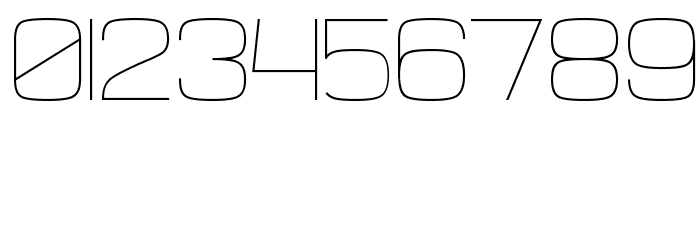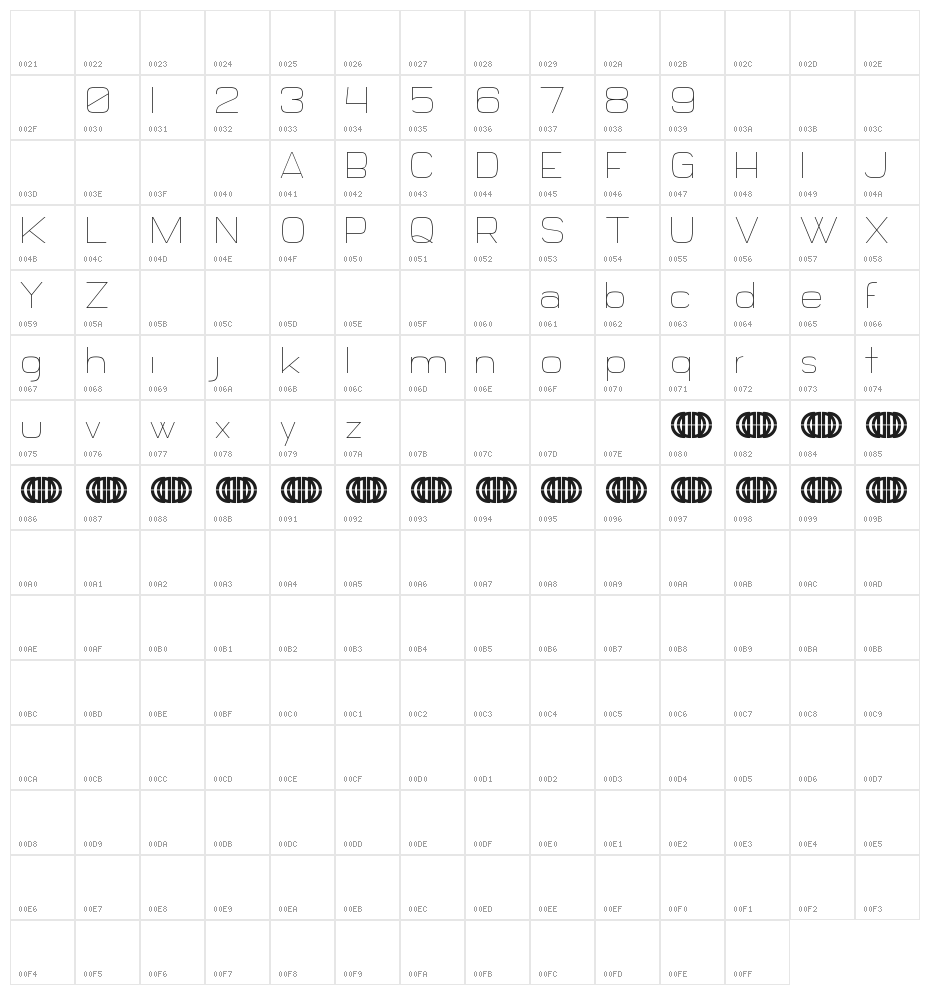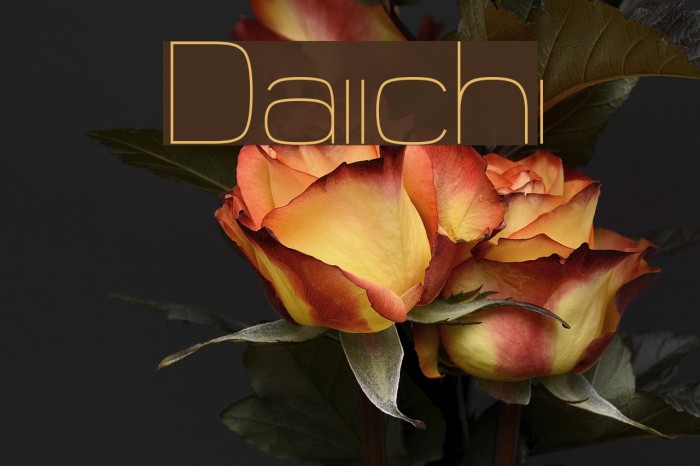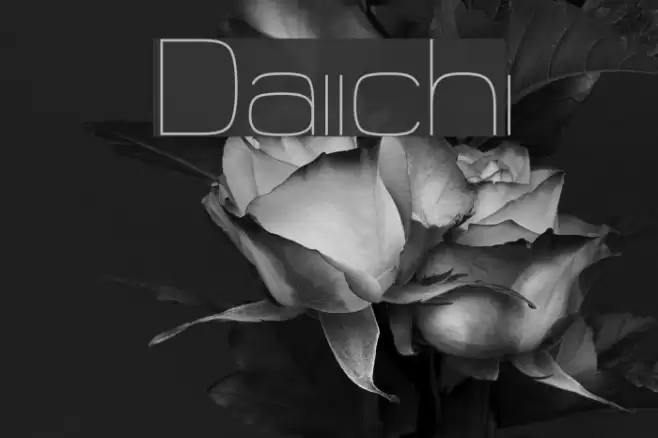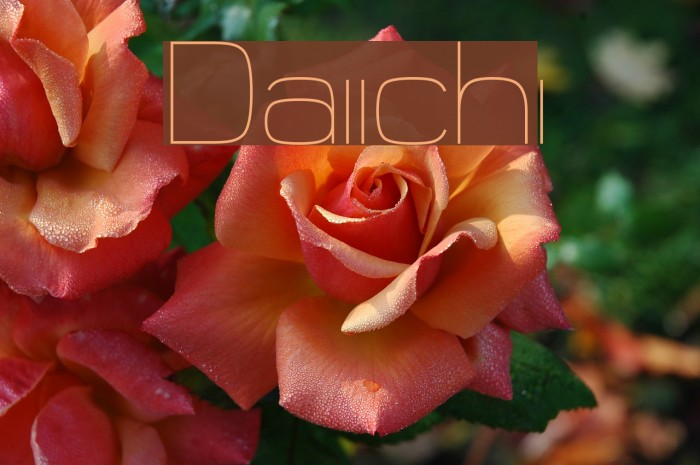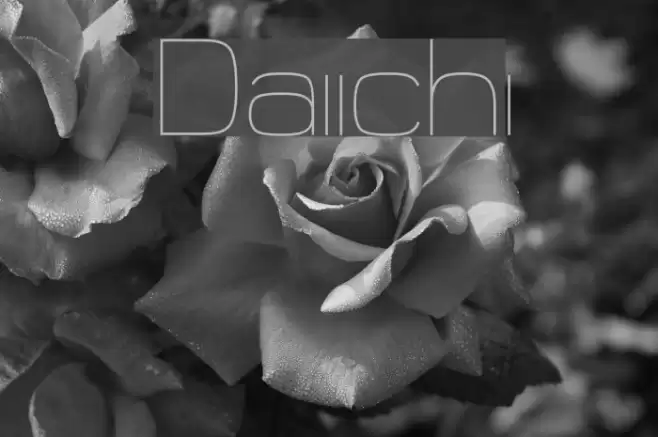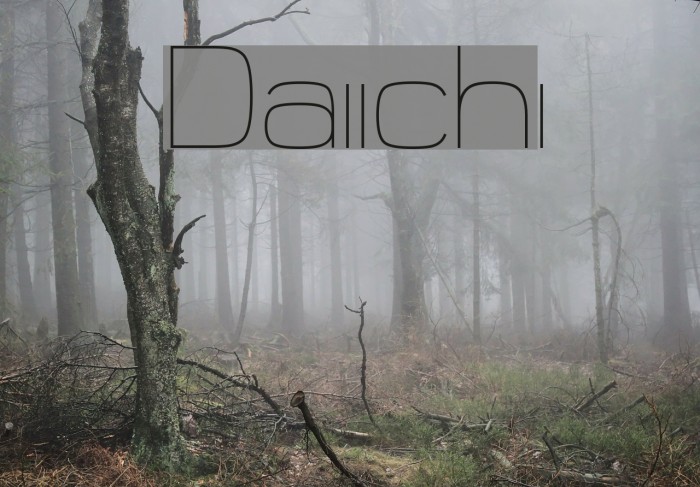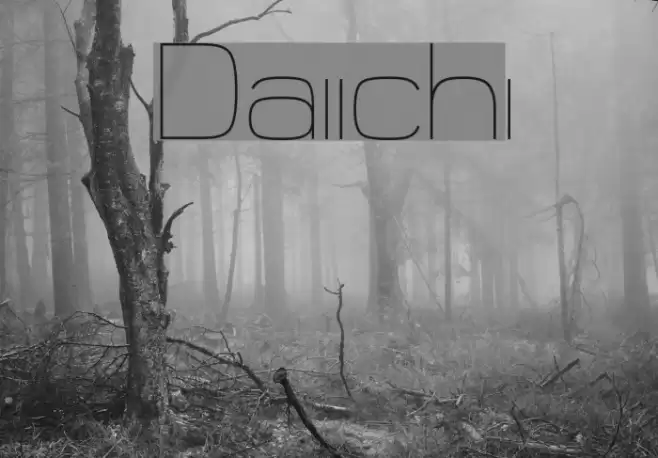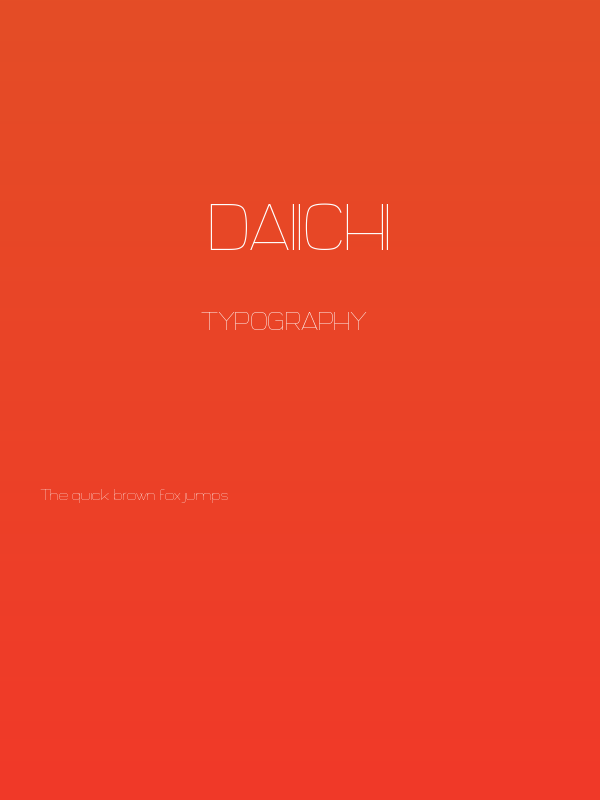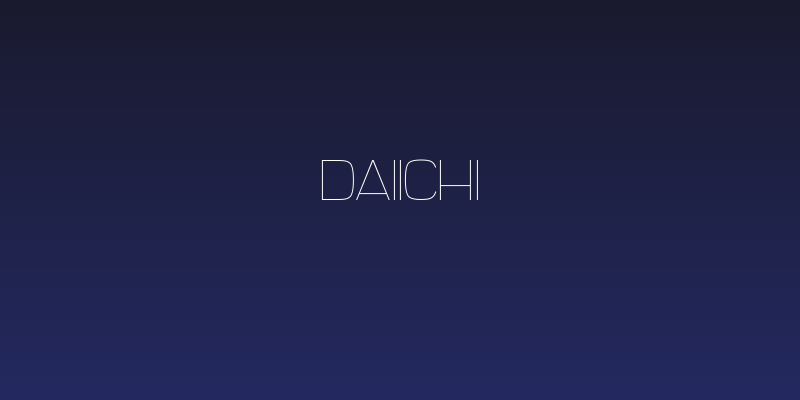
Daiichi Font
Daiichi Description
This font features a sleek, modern design with a geometric and minimalist aesthetic. The characters are composed of thin, uniform lines that create a sense of elegance and sophistication. The uppercase and lowercase letters maintain a consistent height, contributing to a clean and orderly appearance. The numerals are designed with the same thin strokes, ensuring a cohesive look across all characters. This font's simplicity and clarity make it highly versatile, suitable for a wide range of applications where a contemporary and stylish look is desired.